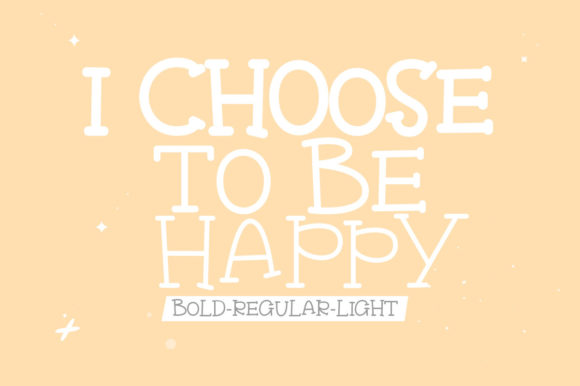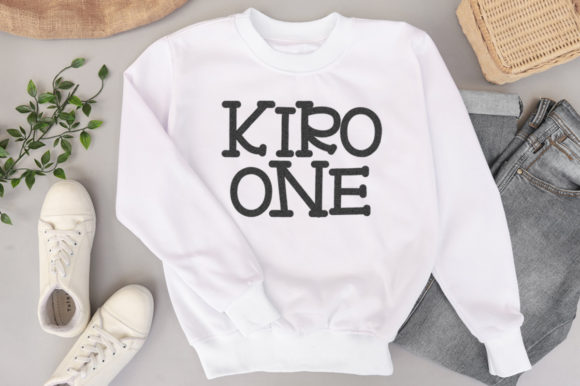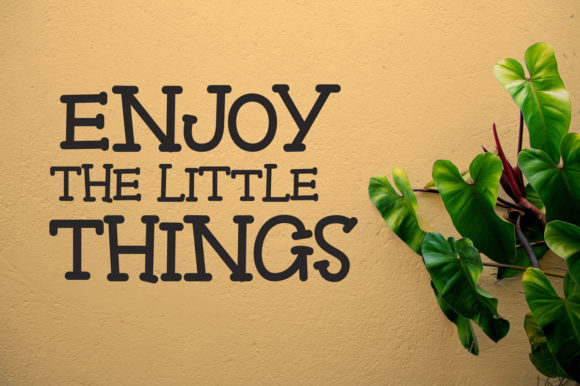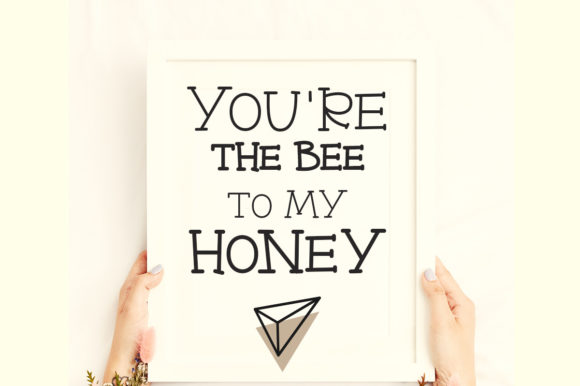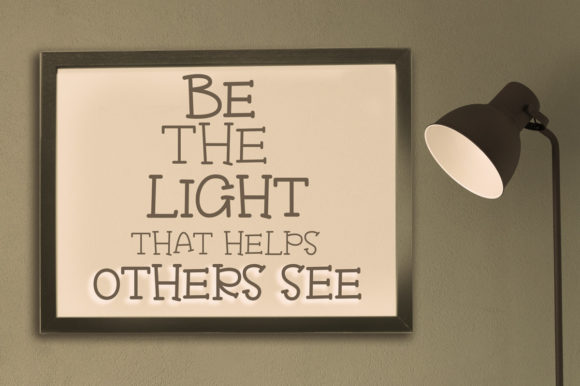
Introduction to Choose Happy Font
Enter the Choose Happy Font, a quirky and fun serif font that is sure to bring a smile to your face. With its natural and unique style, this font is the perfect addition to any design project, from a simple logo to a complex creative campaign. And the best part? It’s available for free download, making it an invaluable resource for designers of all levels.
Whether you’re working on a high-quality design project or just need a reliable font for your next creative venture, the Choose Happy Font is a valuable addition to your design arsenal. With its transparent background and high-quality design, this font is sure to elevate your work and leave a lasting impression on your audience.
Key Features of Choose Happy Font
- High-quality design resource featuring a playful, modern font suitable for creative projects.
- Choose Happy Font comes in a single weight with 256 glyphs, supporting multiple languages and scripts.
- Perfect for use in logos, branding materials, digital graphics, and other creative projects requiring a fun and approachable tone.
Honest Review: Choose Happy Font
I recently stumbled upon Choose Happy Font, and I must say it’s been a game-changer for my creative projects. The font is available for a free download, which is always a bonus. The high quality of the font makes it perfect for any design resource I’m working on.
Here are some things that work well with Choose Happy Font: ✨
- It’s super versatile and can be used in a variety of creative contexts.
- The transparent background makes it easy to layer over other design elements.
- The font is highly customizable, making it perfect for branding and identity projects.
However, there are a few limitations to be aware of: ⚠️
- The font may not be suitable for small text sizes, as the letters can become pixelated.
- The font family is relatively small, so you may not have as many options as you would with a more extensive font collection.
Overall, I’m really impressed with Choose Happy Font. It’s a solid addition to any designer’s toolkit, and I’d highly recommend it for any creative project. Just be aware of the limitations mentioned above, and you’ll be golden.
The Choose Happy Font is ideal for social media graphics, posters, flyers, and any other creative project requiring a unique and high-quality font. Its transparent background makes it easy to overlay on any design, giving you complete creative control.
To get the most out of the Choose Happy Font, experiment with different font sizes, colors, and combinations. This font is highly customizable, making it perfect for designers and non-designers alike.